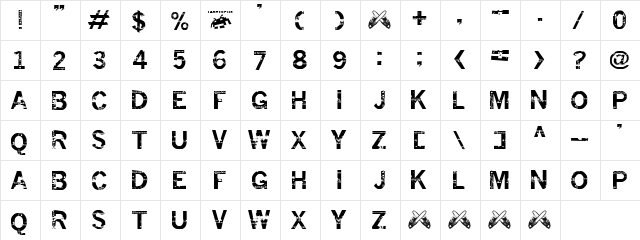
insomnesia Font Preview
insomnesia insomnesia
insomnesia Font Details
Design Context for insomnesia Typeface
insomnesia is a composed and adaptable typeface that performs quietly and consistently across a wide range of design contexts.